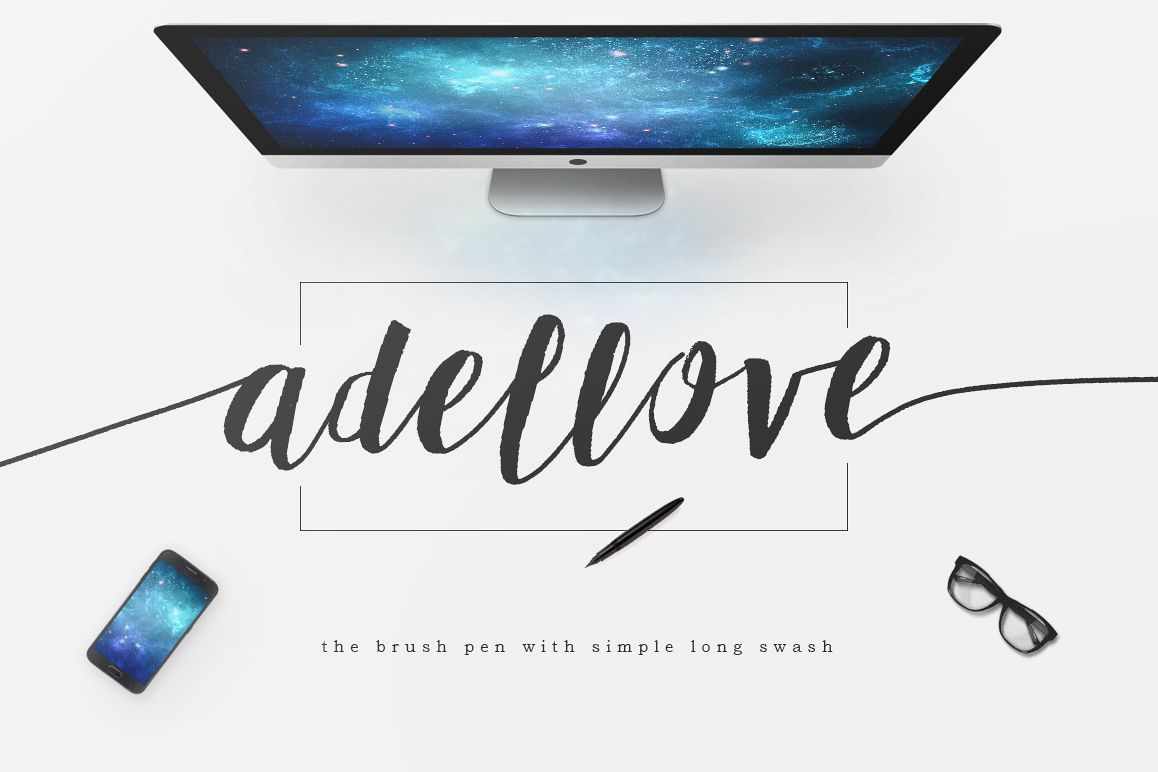
Give your designs an authentic brush handcrafted feel. "Adellove" is perfectly suited to stationery, logo, typography quotes, magazine or book cover, website header, clothing, branding, packaging design and more. Included Stylistic Alternates and Swash Alternates.Use the alternates in Adobe Illustrator and Adobe Photoshop, this is the quick tutorial: